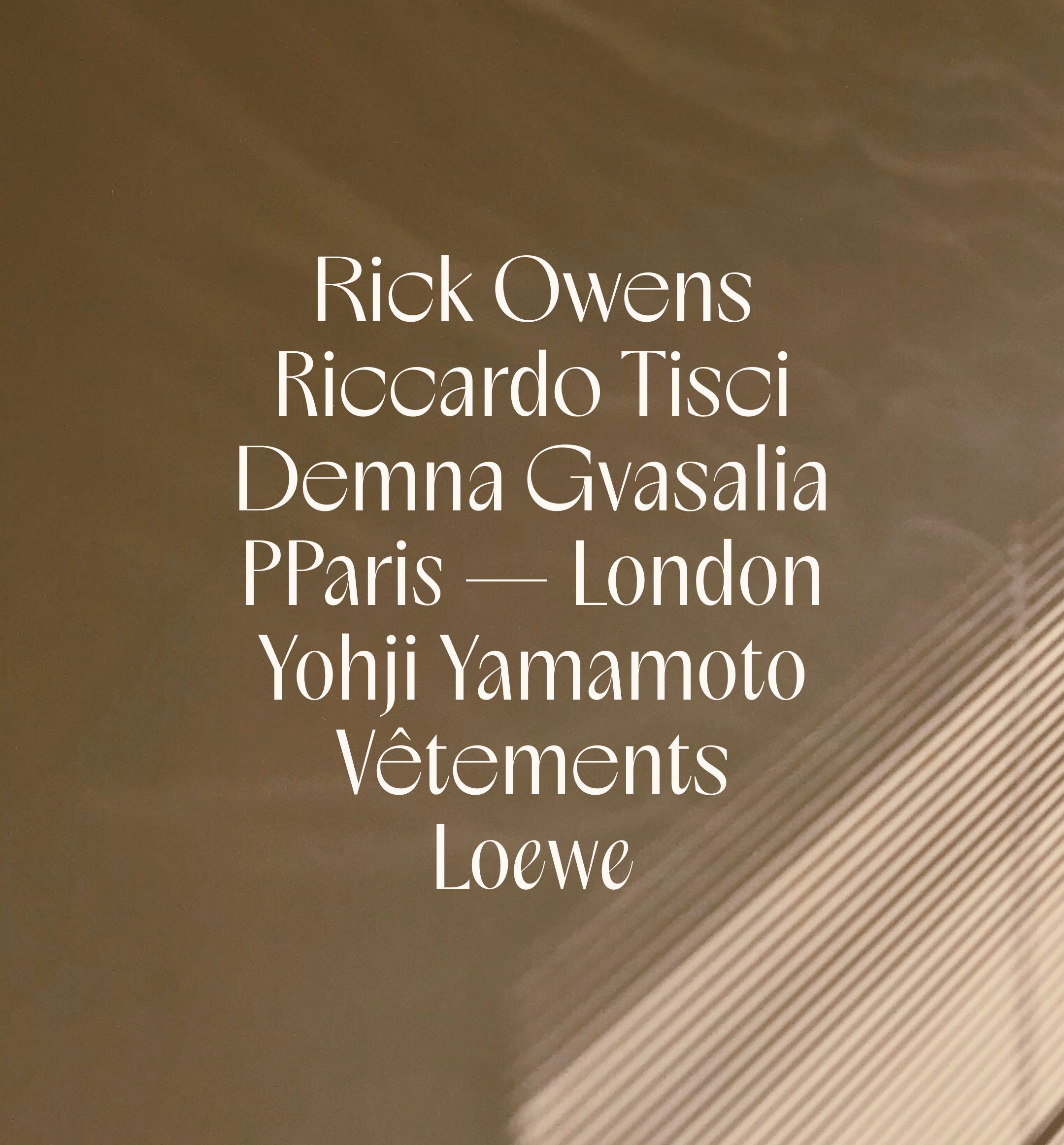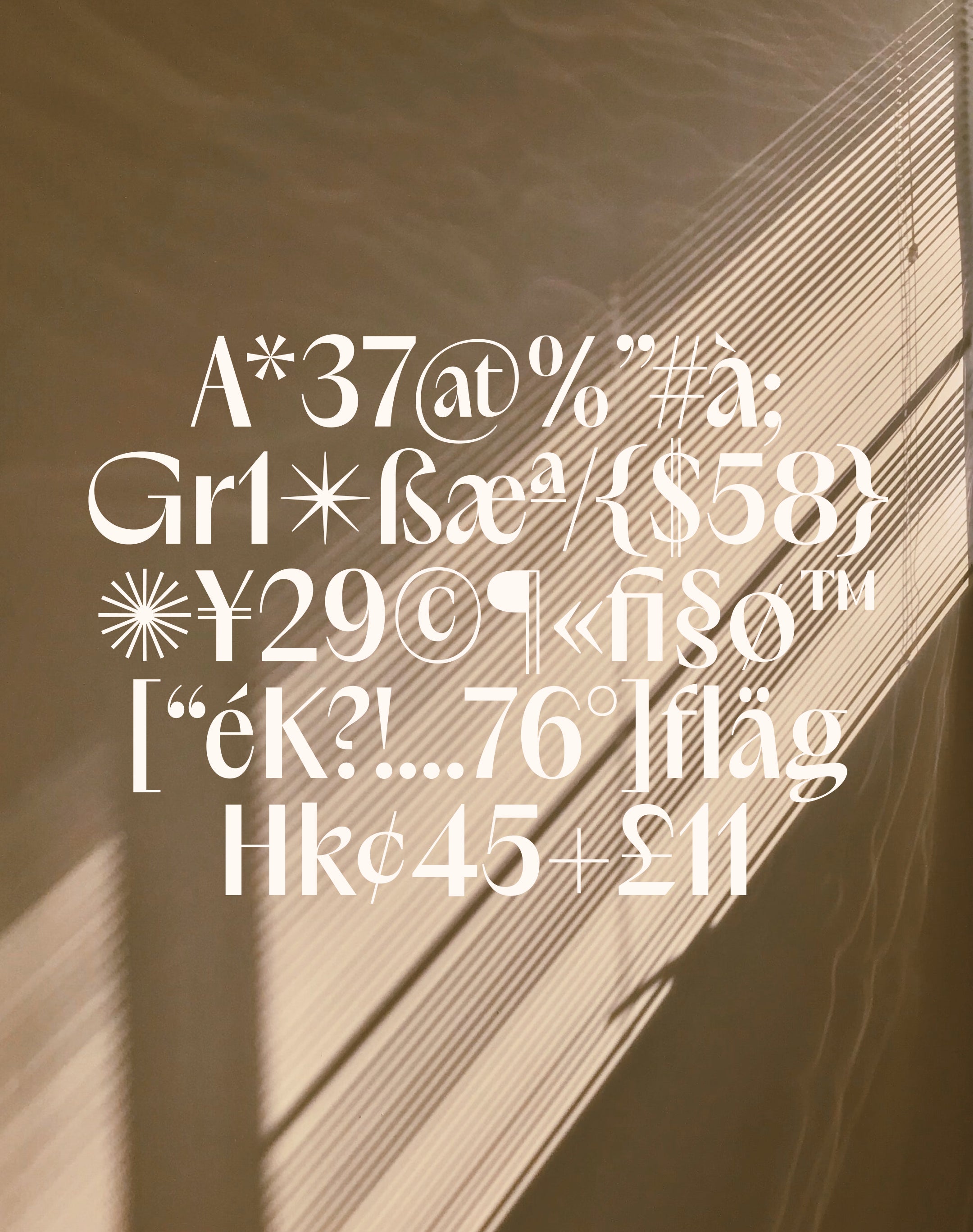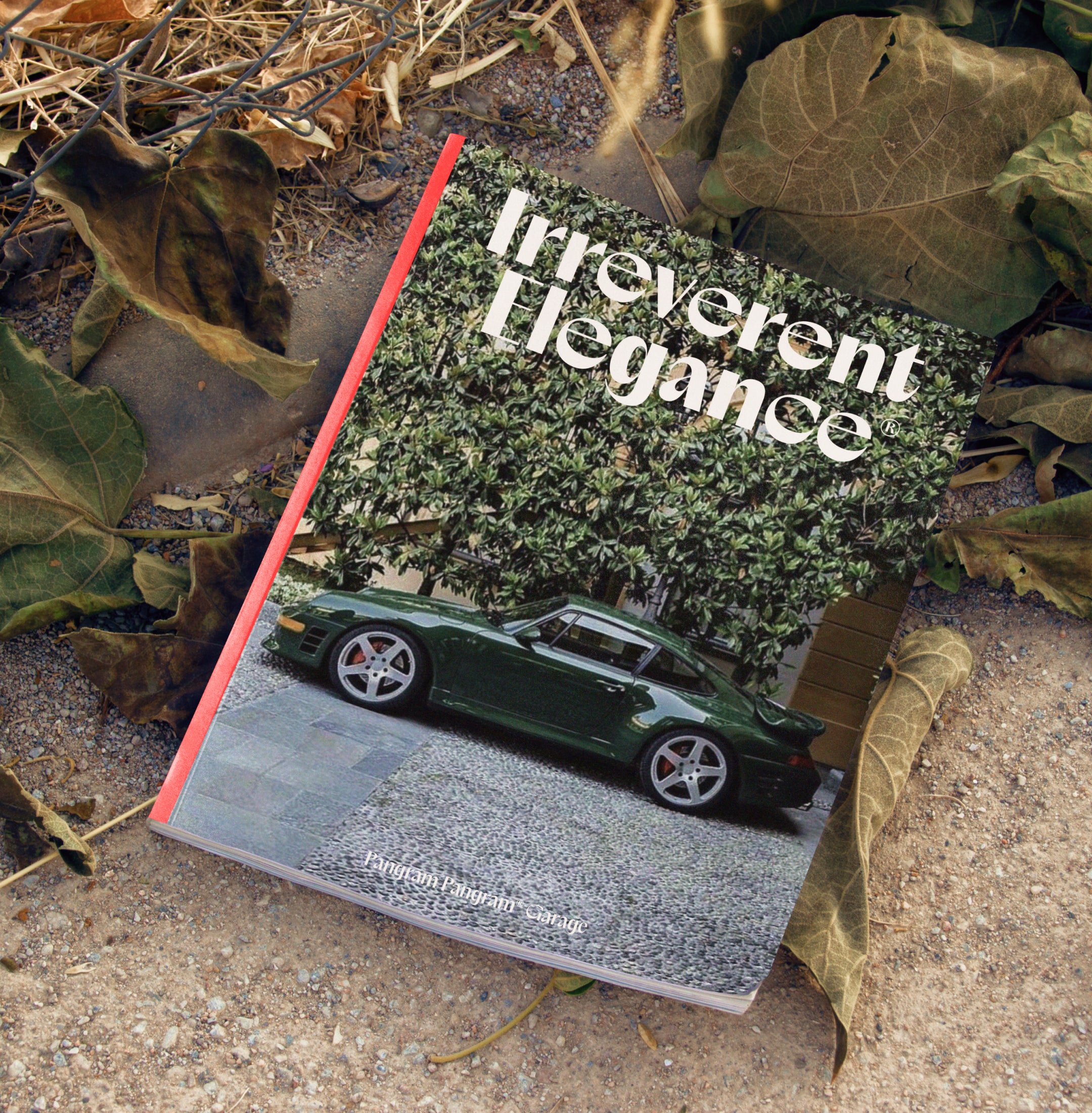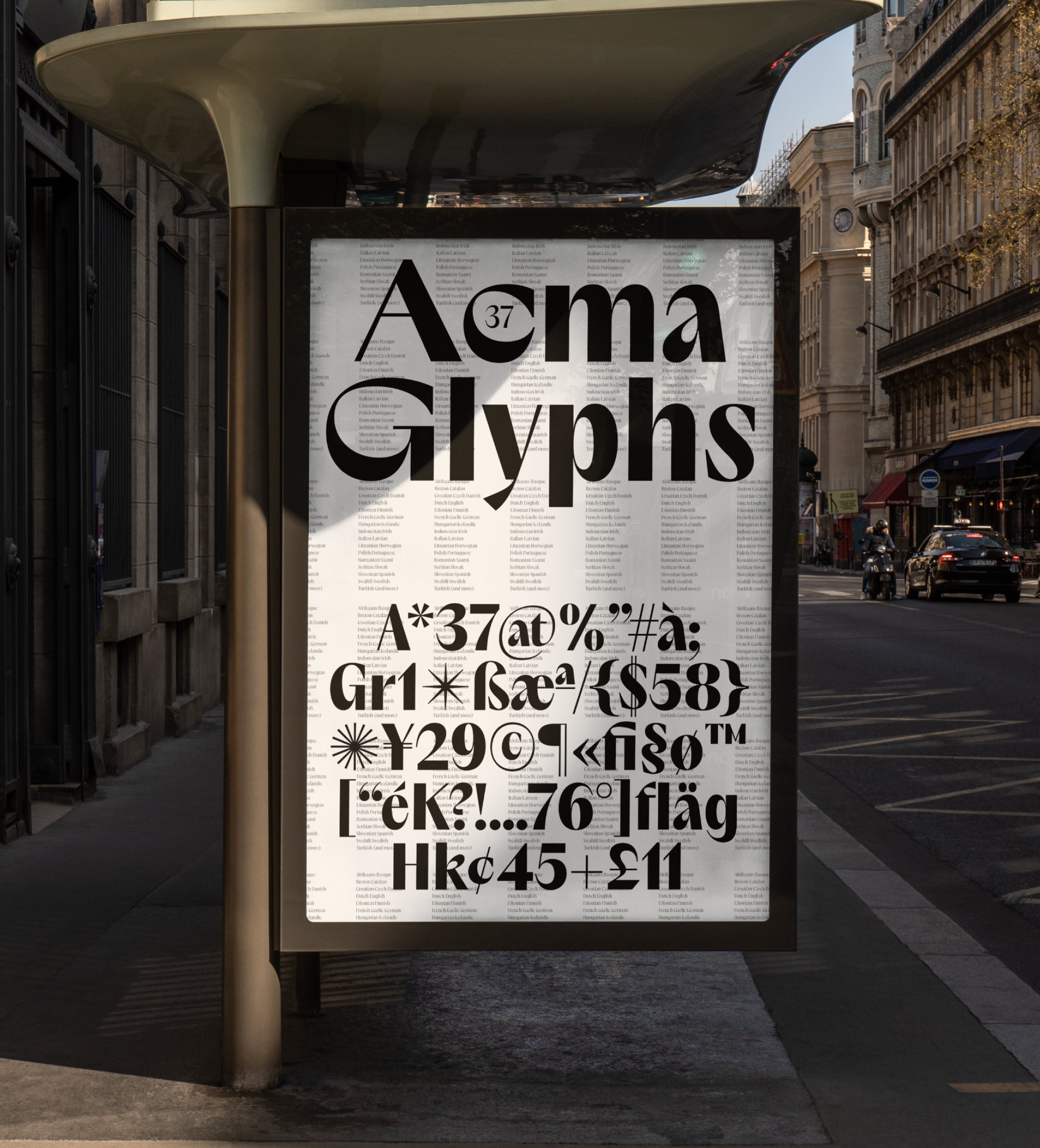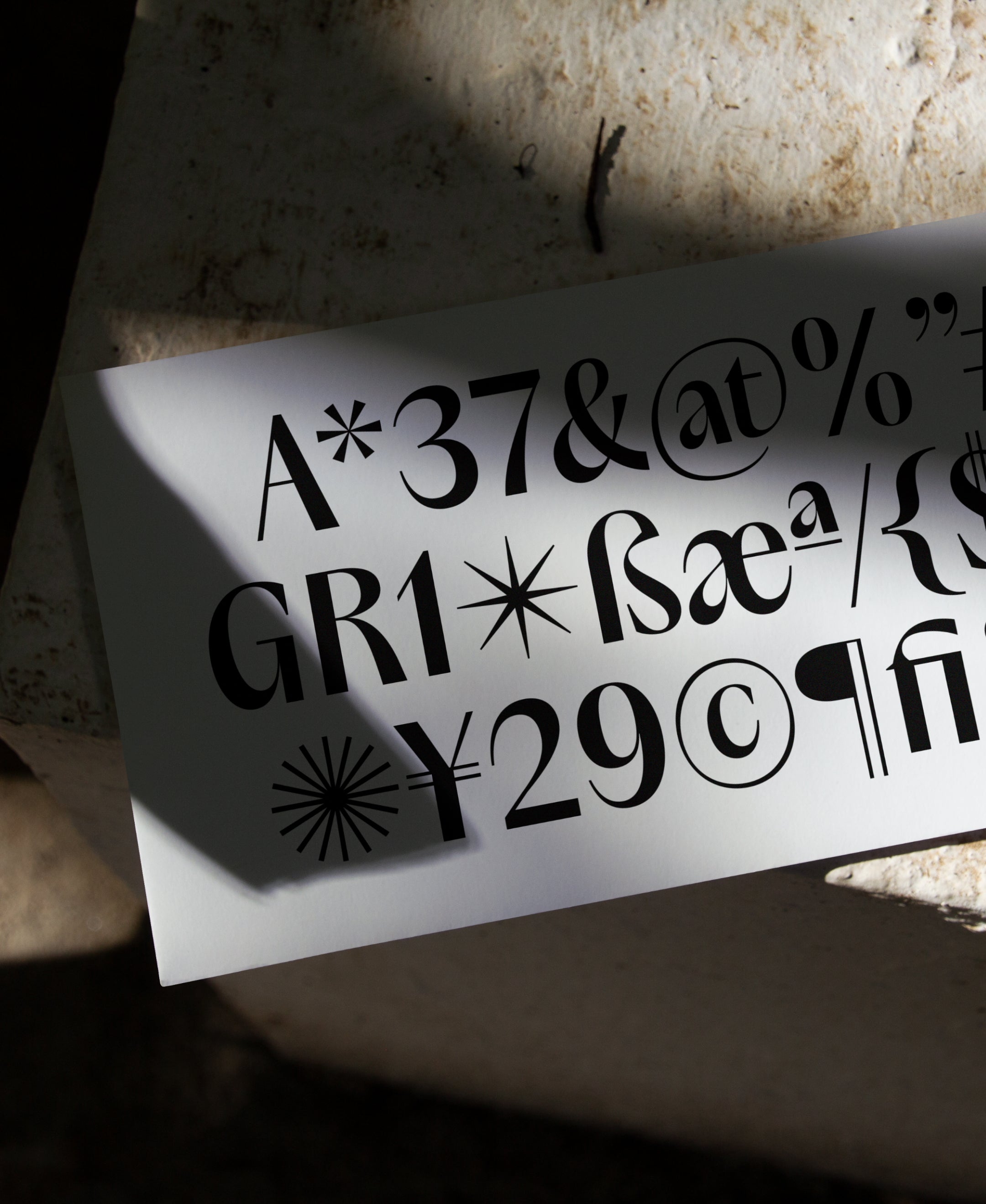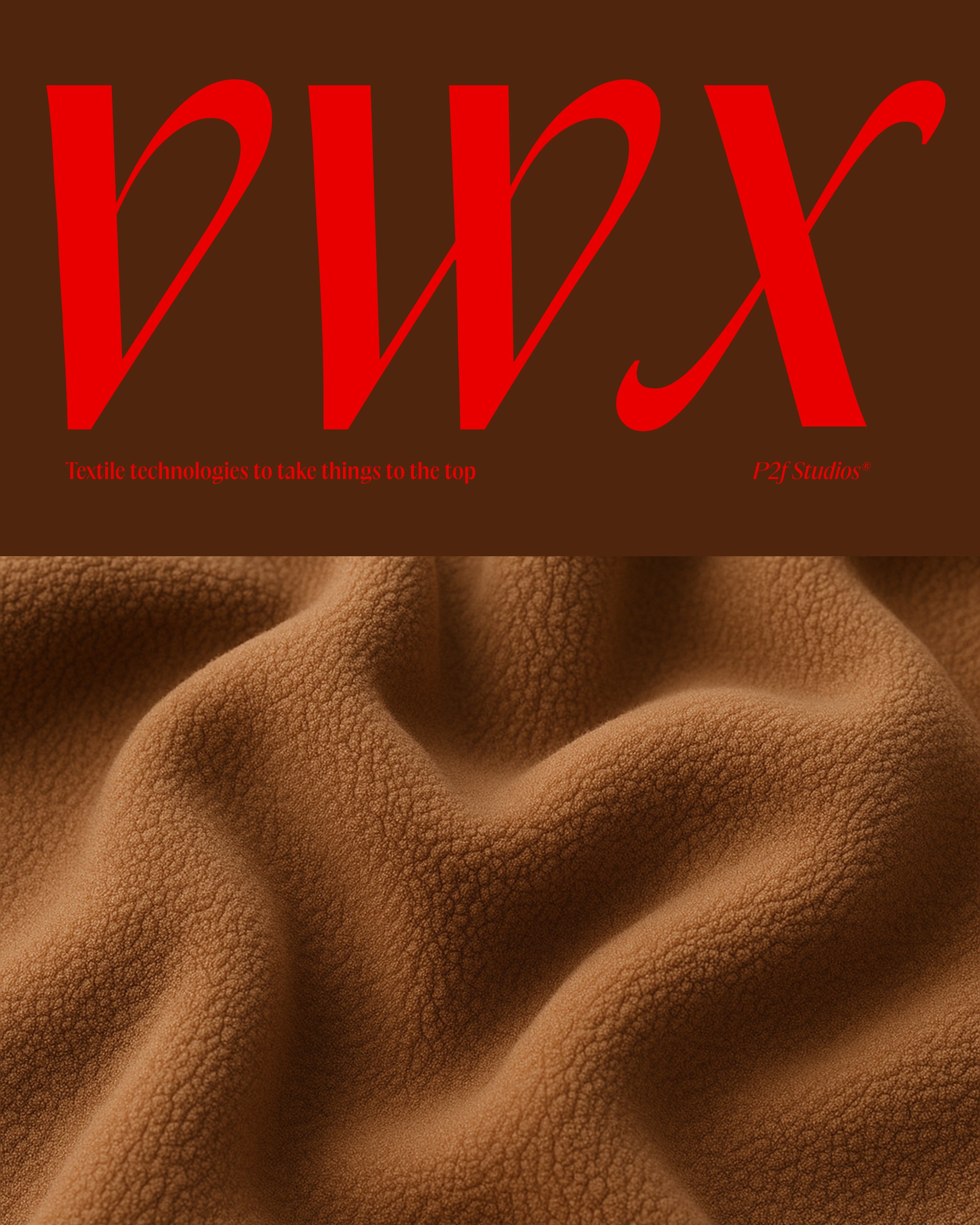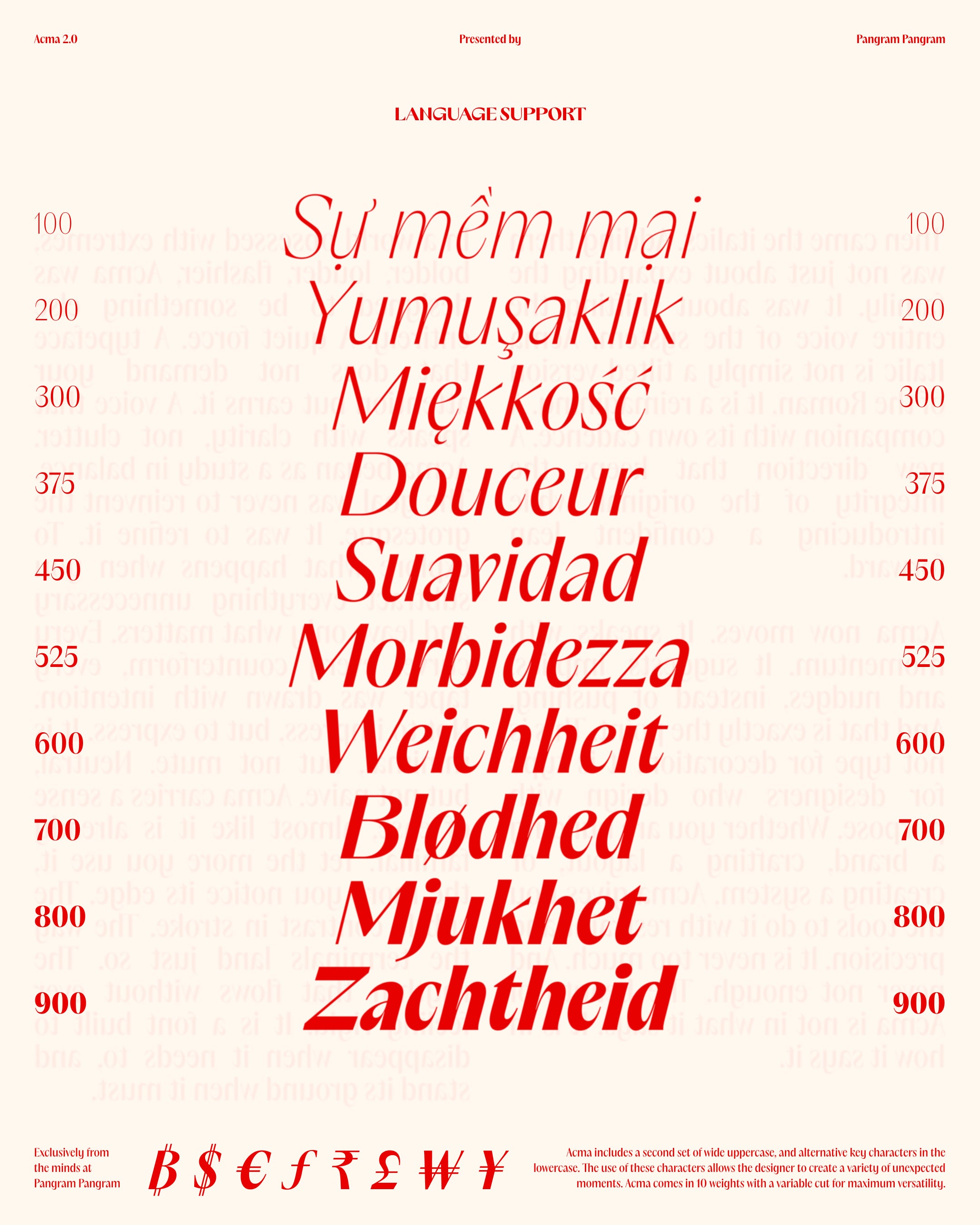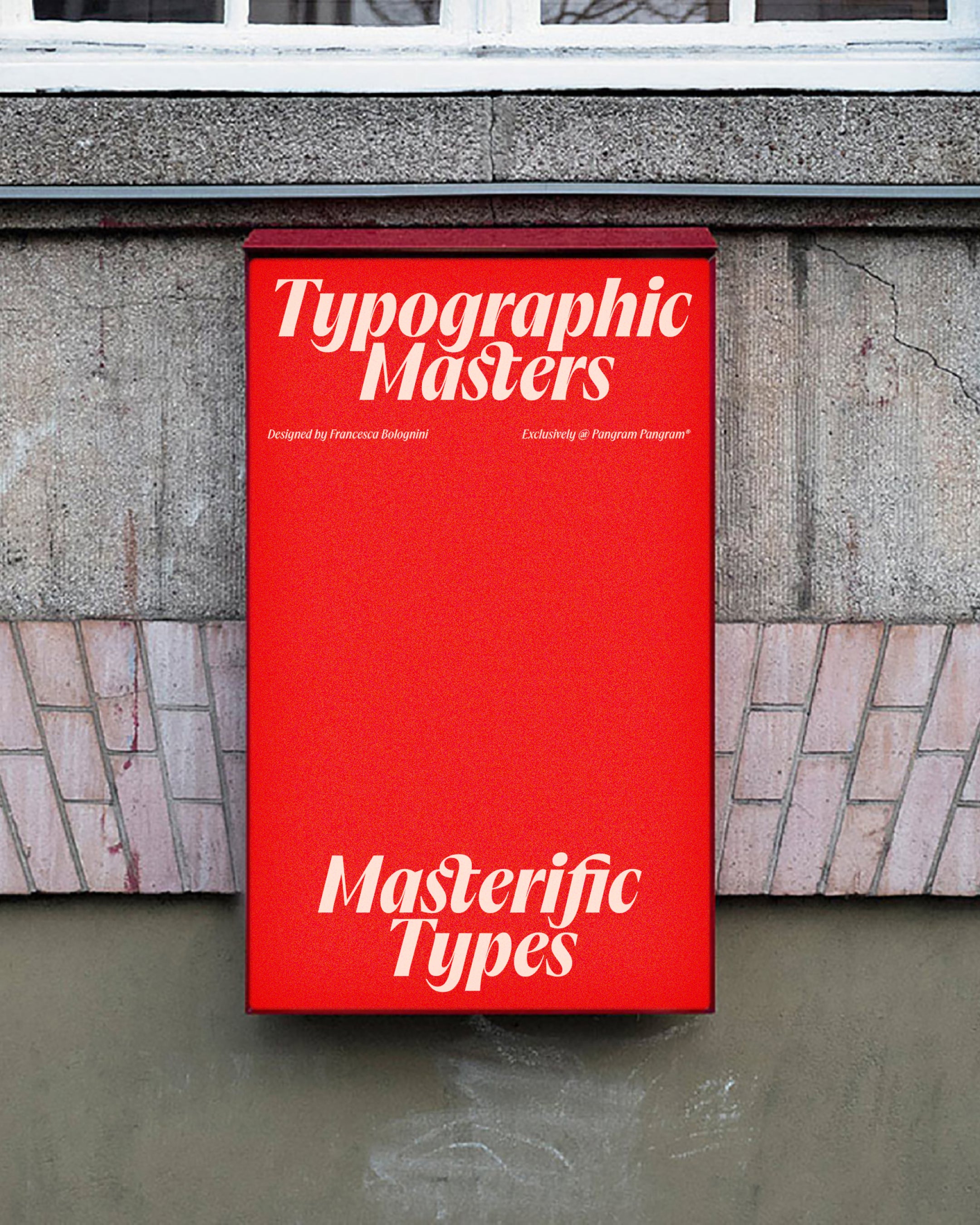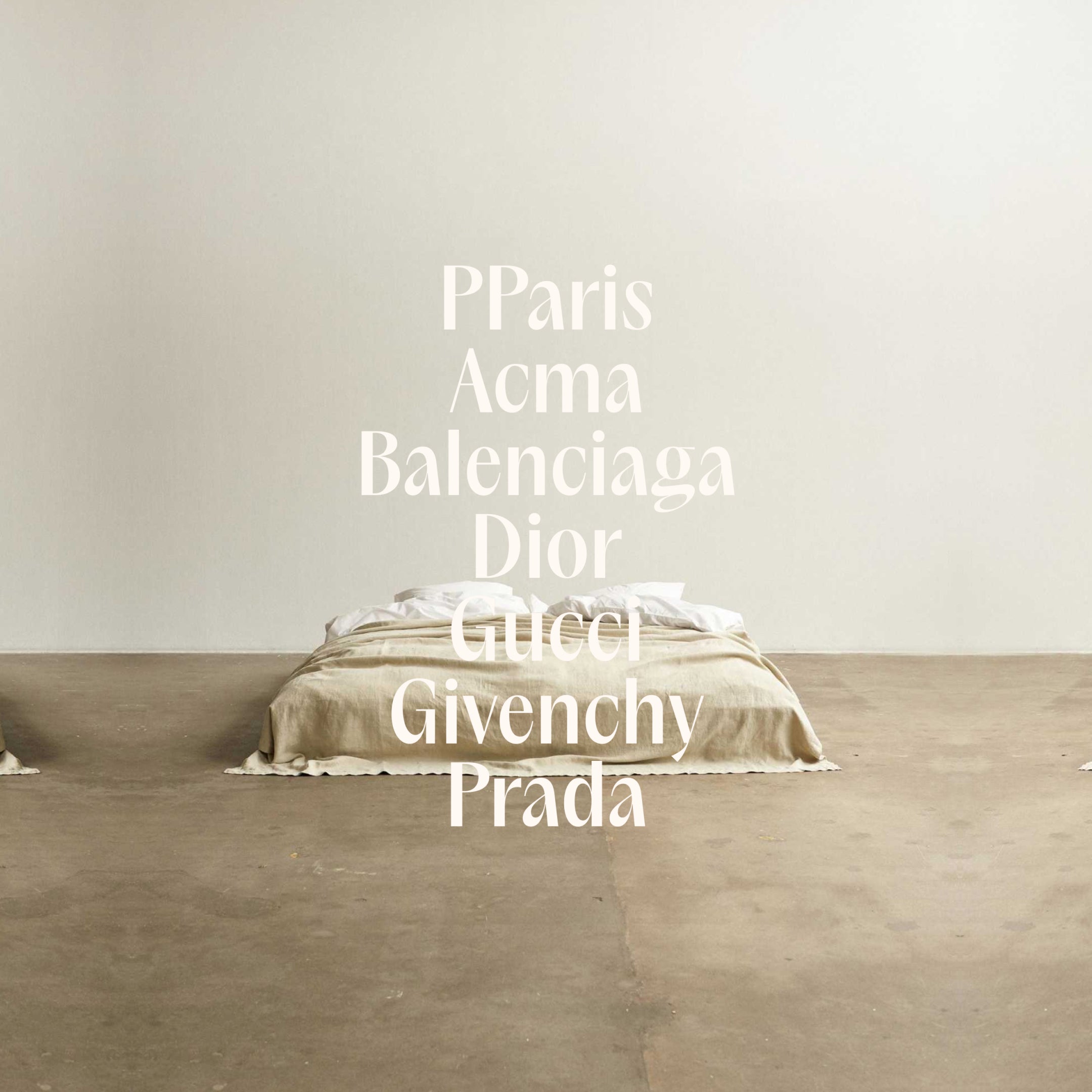
Acma
Irreverent typeface with elegance.
Acma
Luscious curves, wide alternates and deep contrast.
Acma is variable
Acma
With italics
Acma's Features
Wide capital letters
ABCDEFGHIJKLM...
Alternate E F L N Q T
E F L N Q T
Wide c e o s w
c e o s w
Alternate e
e
→
e
Alternate a f g k y
a f g k y
Alternate a
a
→
a
Discretionary Ligatures
ST St st Th ct ft oo
Standard ligatures
fi ff ffi fl ffl
Case sensitive forms
{[(OH-@11:11!)]}
Slashed Zero
0
→
0
Grace, With Sharp Edges.
Acma is an irreverent typeface with a powerful elegance. It is ultimately precise and subtle yet it remains flowy and temperamental. The design was inspired by the Japanese modernist aesthetic as well as the fashion world [past, present and future] for its unapologetic nature and opulence through the purity and the tension of its lines yet unconventional forms and rhythms.
The design of the lowercase “a”, gave the tone to the whole family, which quickly became Acma. Its luscious curves, wide alternates and deep contrast will embellish any design endeavour it takes on. Guaranteed. It is a highly contrasted, narrow sans serif, ranging from thin to black. Originally intended for editorial headlines, Acma can be use in a variety of purpose starting at 12 point.
Acma includes a second set of wide uppercase, and alternative key characters in the lowercase. The use of these characters allows the designer to create a variety of unexpected moments. Acma comes in 10 weights with a variable cut for maximum versatility.
It is a celebration of idealistic beauty, express through tension, balance, unorthodox shapes.